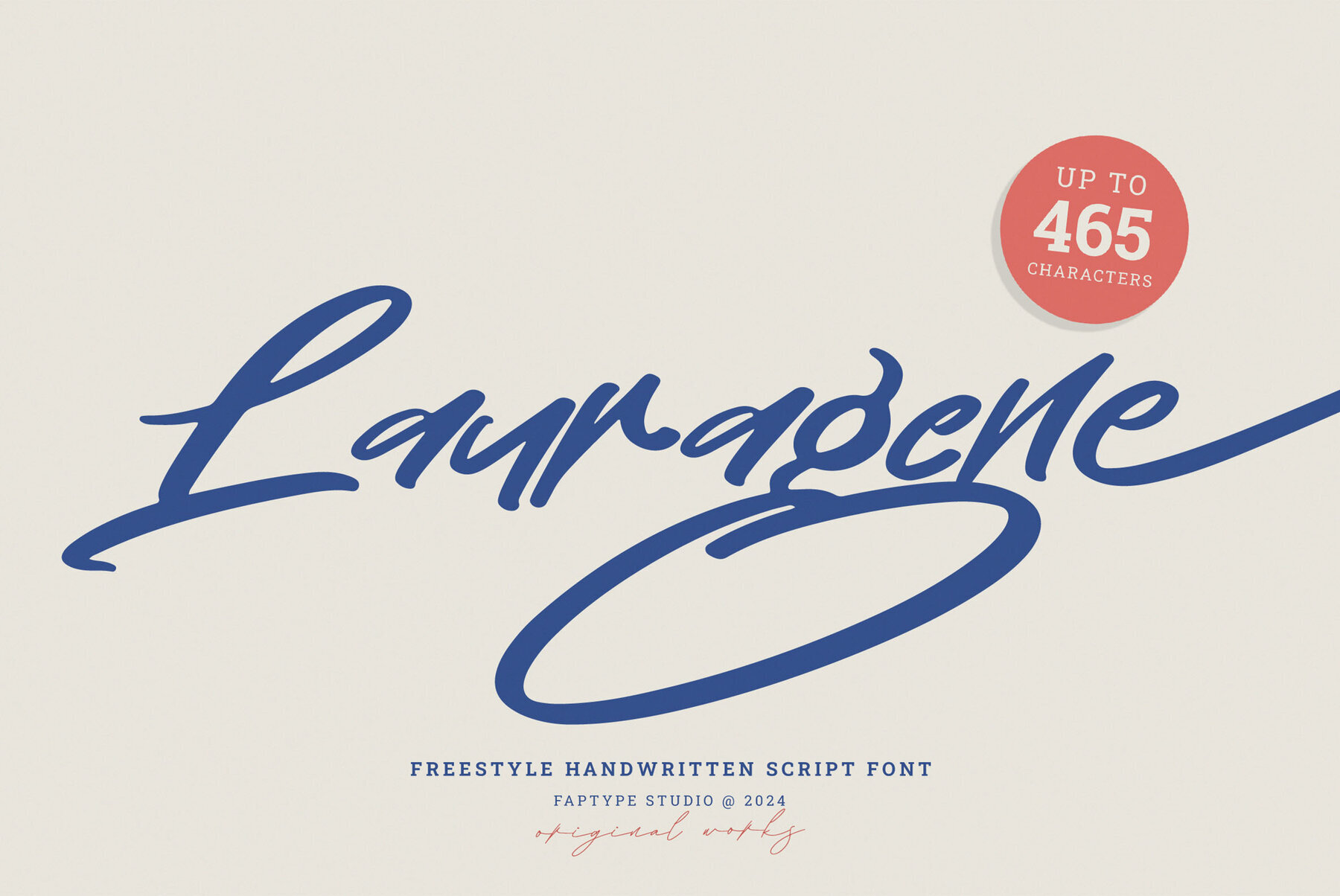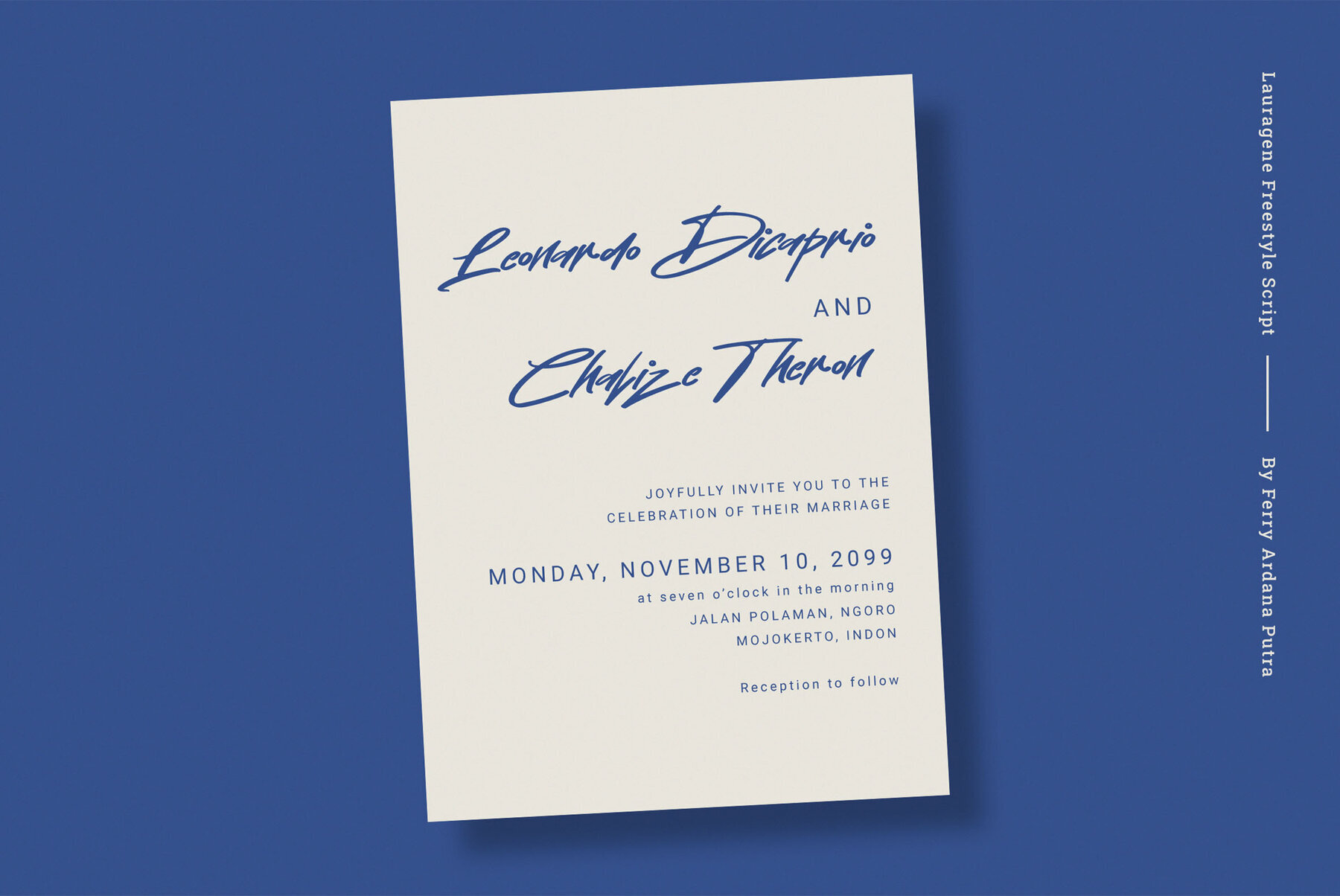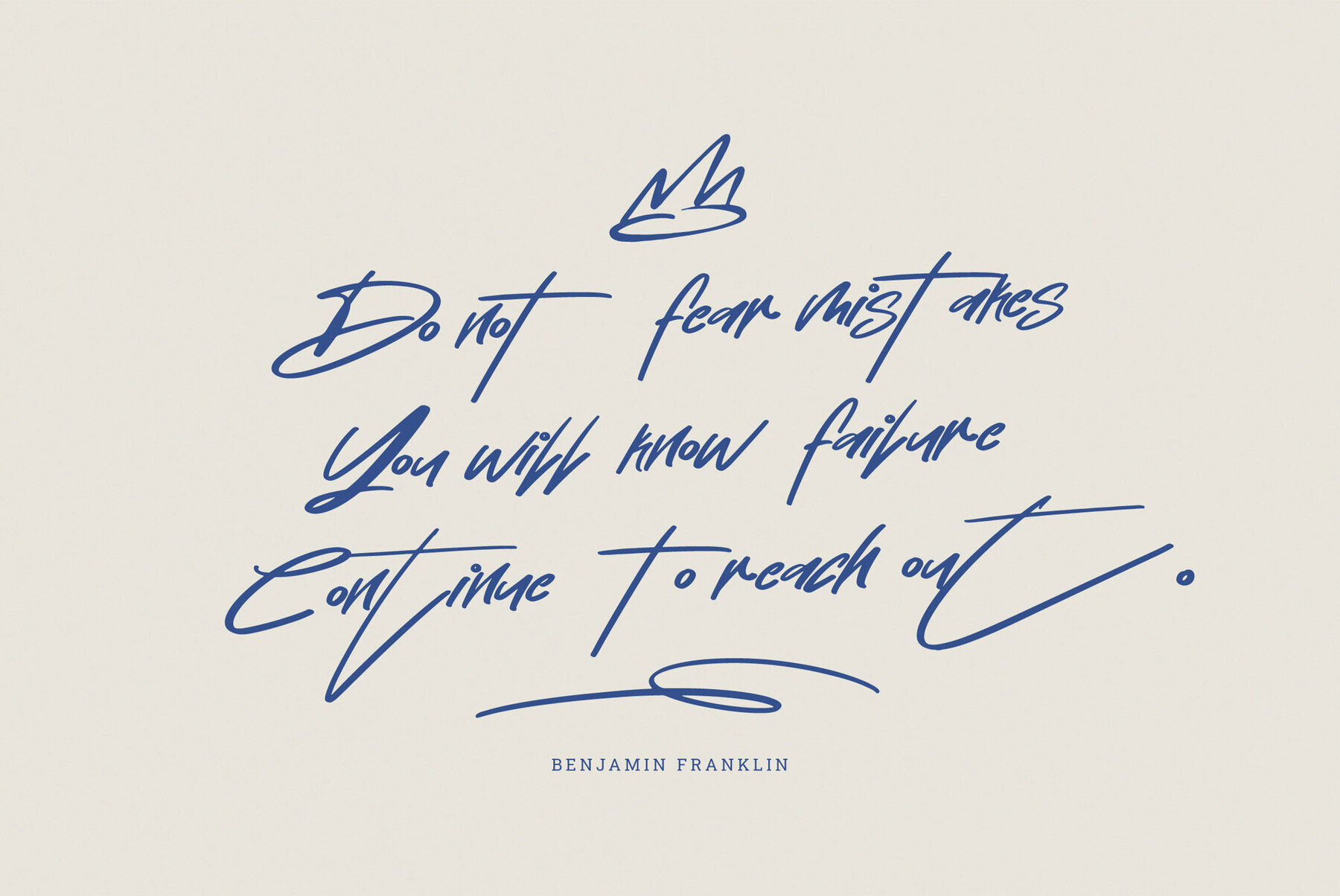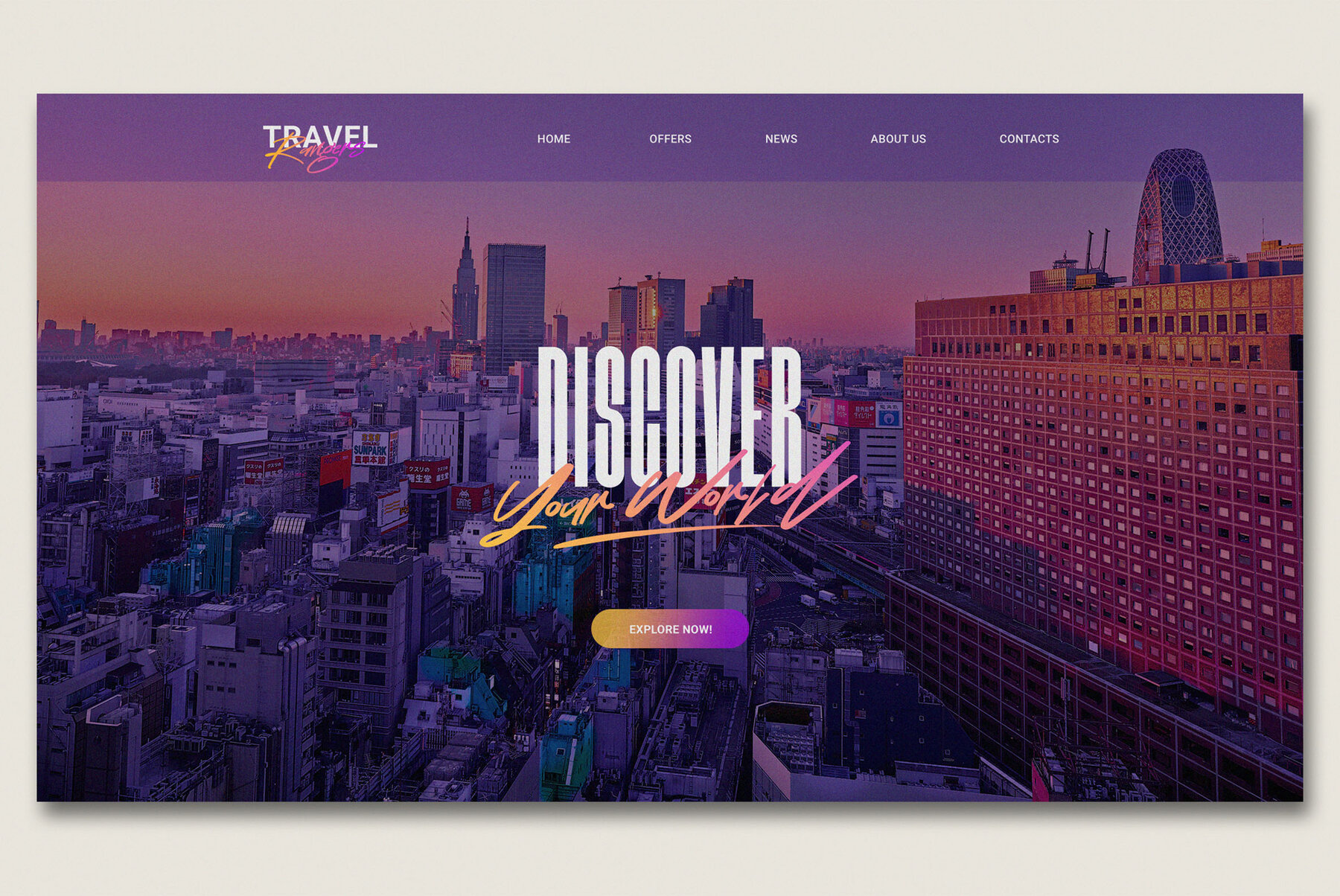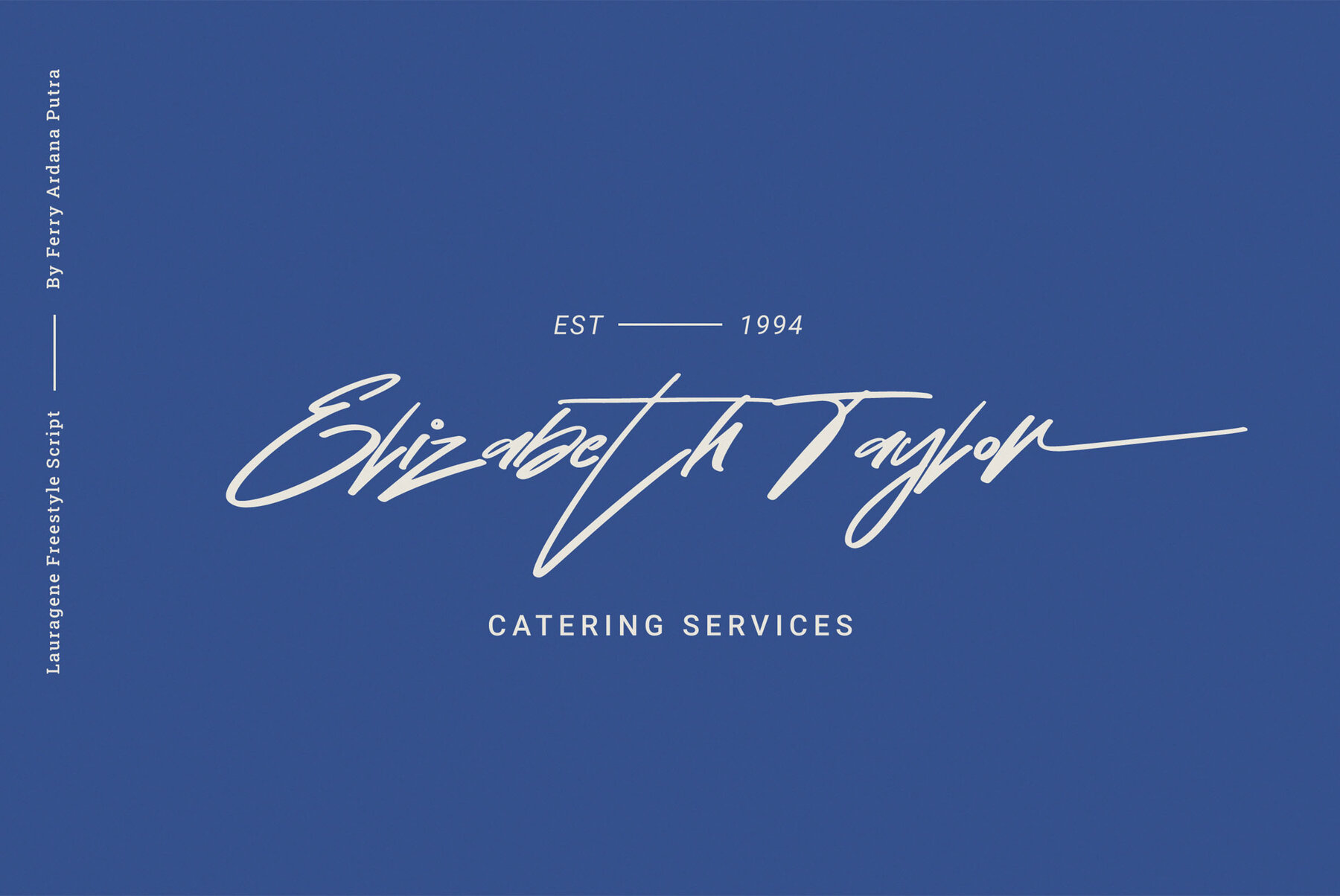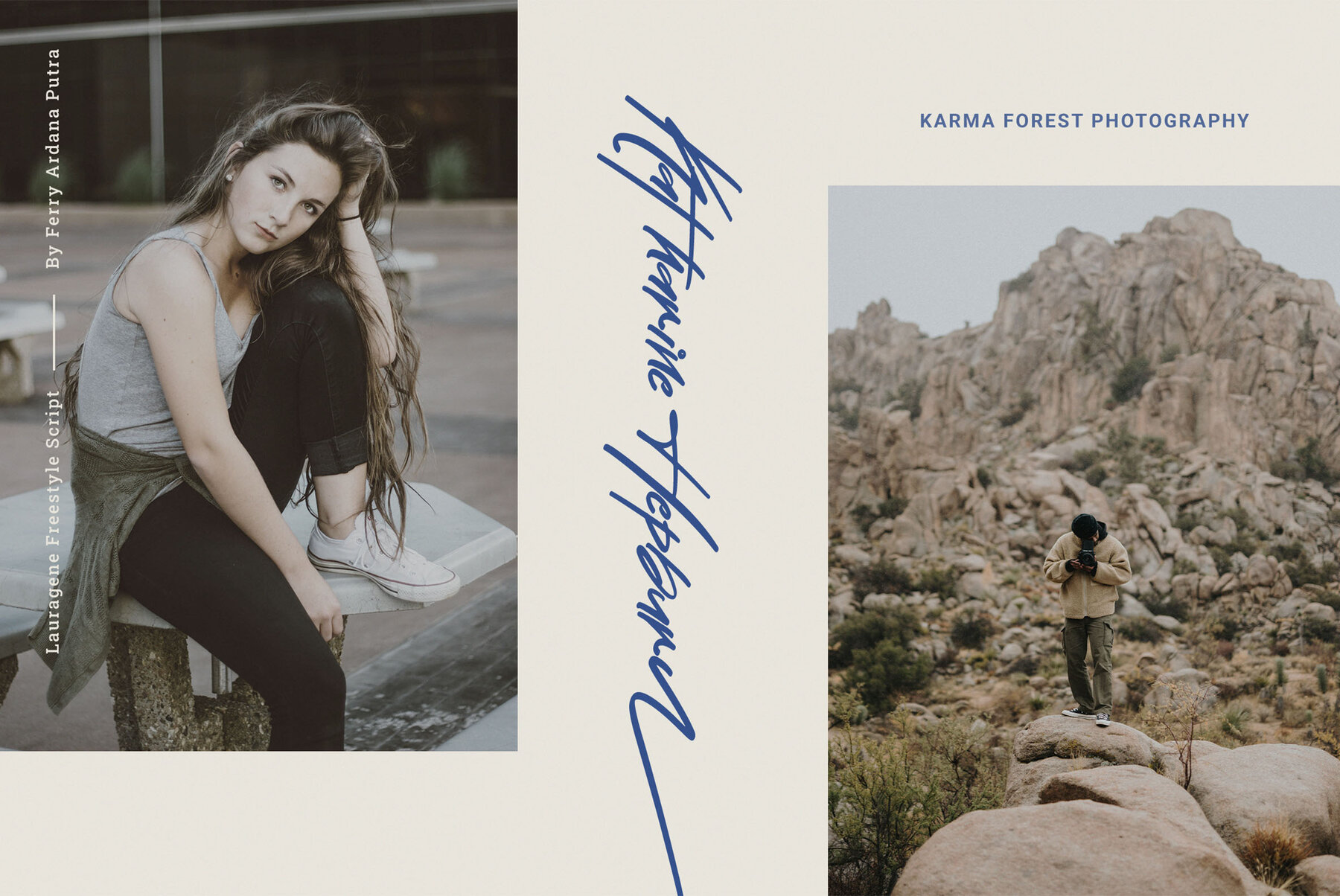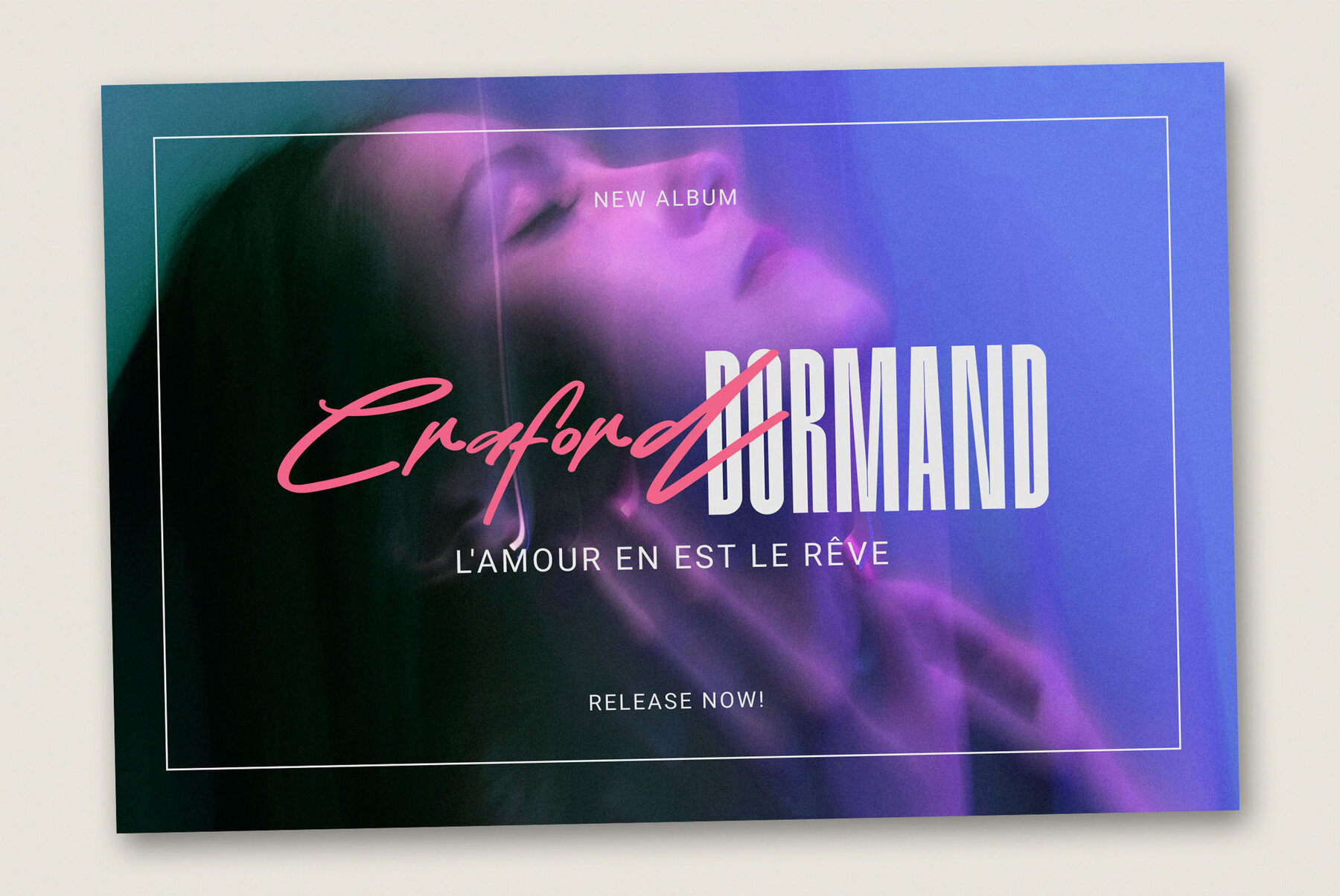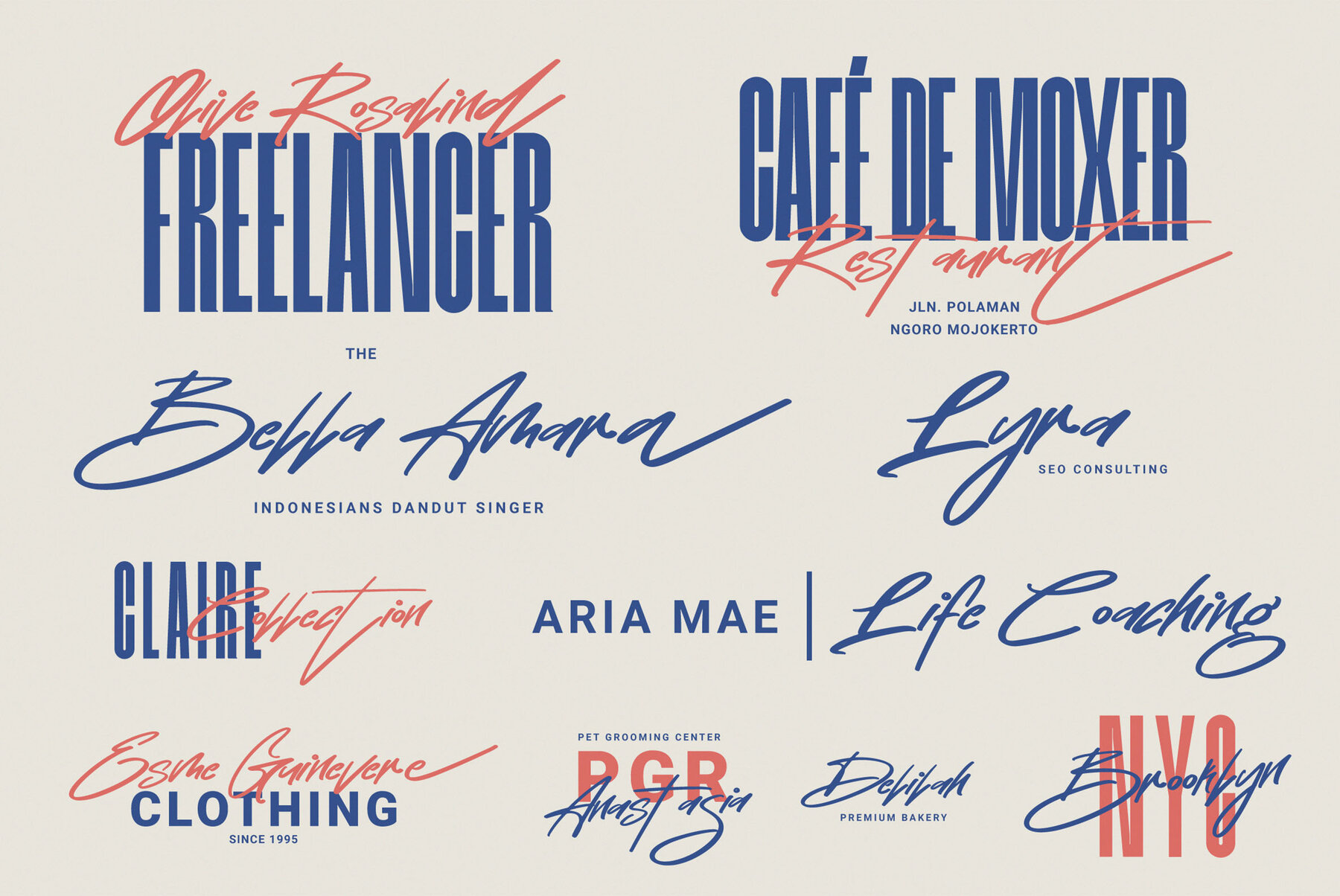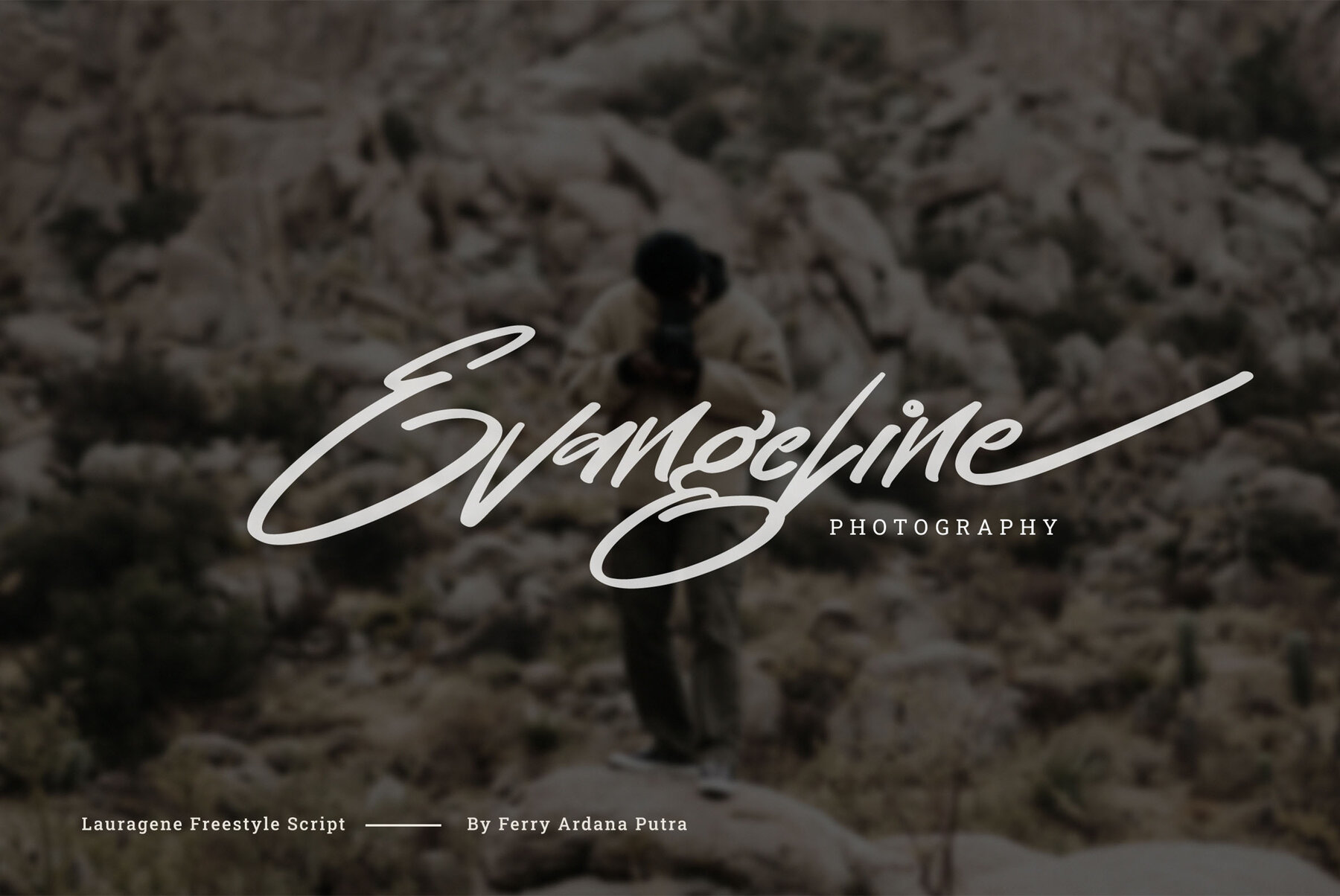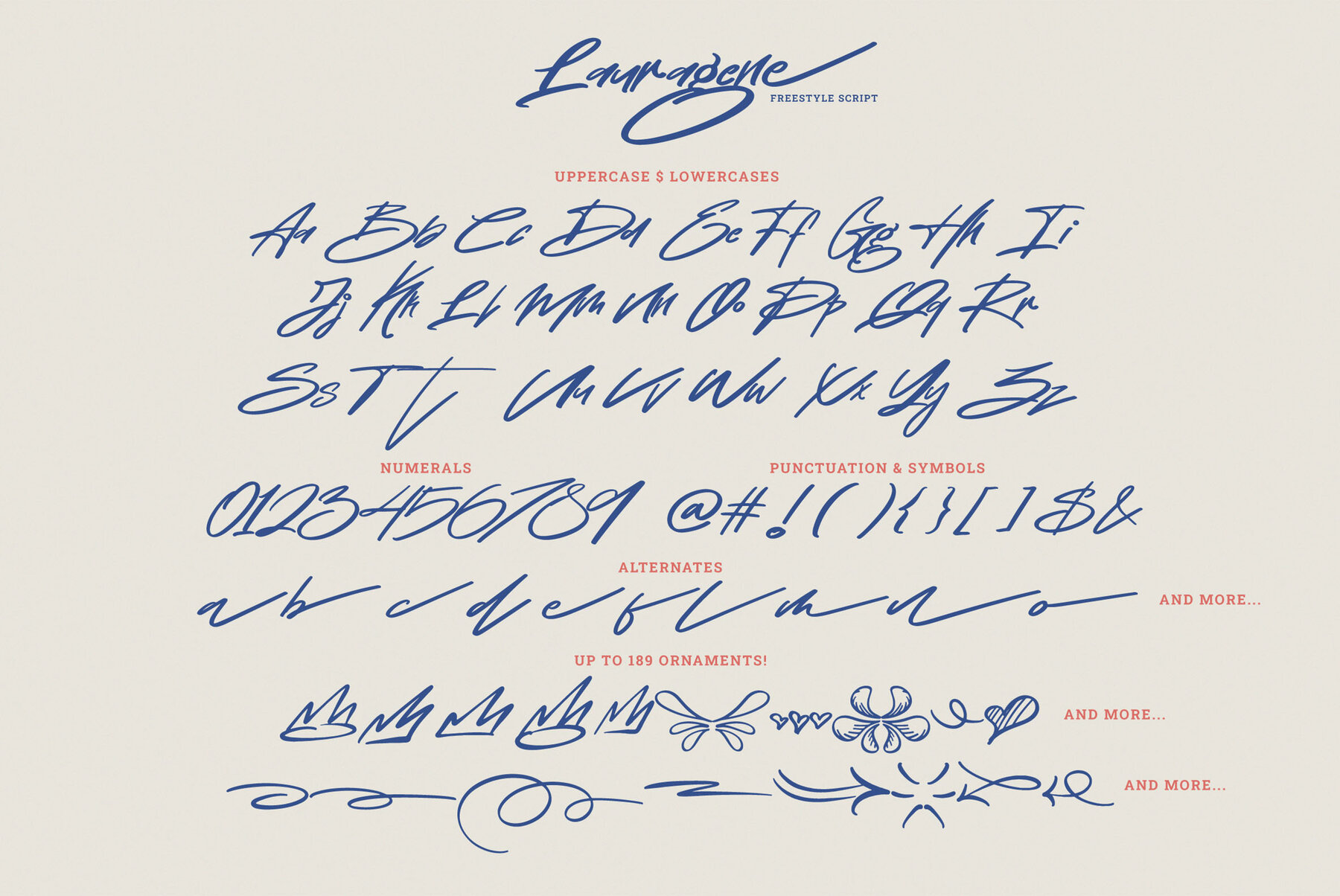
Lauragene Font
Lauragene Regular
Introducing Lauragene, a versatile freestyle script font designed to elevate your projects with a touch of elegance and spontaneity. Lauragene captures the authentic feel of hand-lettered art, with fluid strokes and organic curves that bring sophistication to any design. Each letter has been meticulously crafted, giving Lauragene a distinctive charm that shines in both digital and print mediums. Lauragene is perfect for a wide range of creative applications—from branding and packaging to invitations and social media graphics. It’s a font that effortlessly blends a relaxed vibe with refined quality, making it ideal for those seeking a balance of personality and professionalism. For businesses and individuals alike, Lauragene offers flexibility with custom licensing options to match your project’s needs. Let Lauragene transform your designs, adding an expressive, timeless quality that speaks directly to your audience. Discover Lauragene today and let your words flow with charm and character. Lauragene: